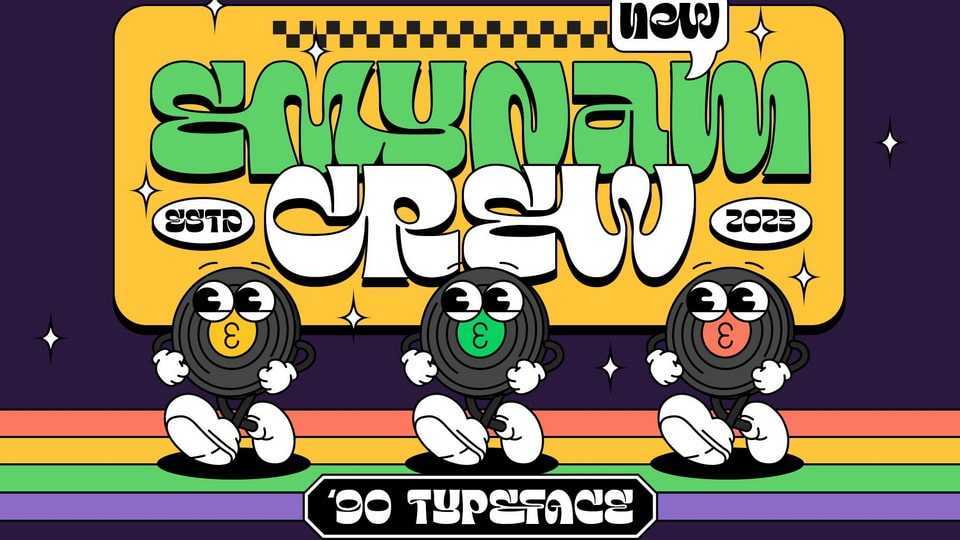
Download Emynam Crew font, a funky display typeface, that will bringing back the retro vibes of yesteryears with a modern twist. With its unique blend of style, flair, Emynam Crew font is a must-have for anyone looking to make a statement.